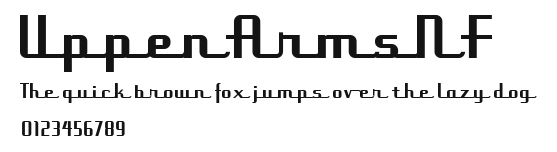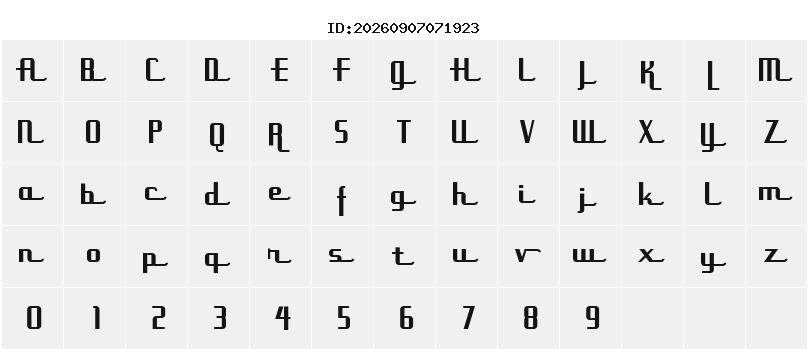
• Font Name: UppenArmsNF
• Designer: Nick Curtis
• Manufacturer: Nick's Fonts
UppenArmsNF.ttf is a modern, elegant sans-serif font designed for ultimate readability and visual harmony. Perfect for branding, headlines, web design, and print materials.